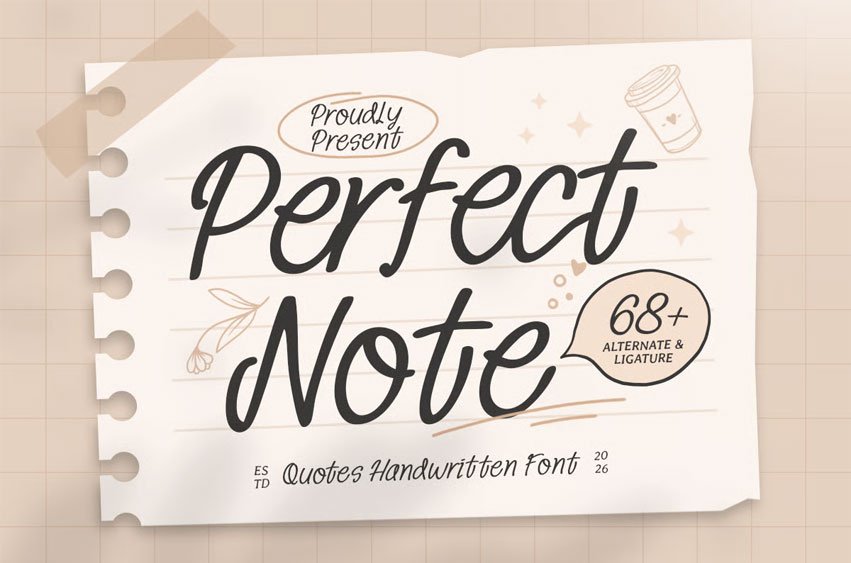
Perfect Note Font is a quotes handwritten font crafted to bring warmth, personality, and natural charm to your typography. With soft handwritten strokes and an easy flowing rhythm, this typeface creates a personal visual tone that feels authentic, friendly, and beautifully expressive.
Designed for quote-focused layouts, Perfect Note works beautifully across inspirational posts, journaling pages, planners, greeting cards, note designs, social media graphics, stickers, quote prints, website headers, and creative branding accents. Its handwritten character keeps every message approachable and stylish while maintaining readability across both digital and print formats.
Whether you’re creating motivational content, designing aesthetic stationery, building a personal brand, or crafting soft handwritten visuals for modern layouts, Perfect Note provides a clean handwritten foundation that makes your typography feel intimate, expressive, and instantly memorable.
Inspiration Behind Perfect Note
Perfect Note is inspired by real handwritten journaling and everyday quote lettering—where simple strokes, personal rhythm, and natural movement create emotional connection. The design focuses on soft flow and readable handwritten balance to support inspiring messages, note-style compositions, and modern creative content with a warm, human touch.
Perfect Note Font Features:
- Handwritten letterforms with soft natural quote-style character
- Perfect for inspirational phrases, notes, and personal lettering
- Clean readable structure for social posts and creative layouts
- Uppercase, lowercase, numerals, and punctuation included
- OpenType features for polished professional typesetting
Perfect For
- Quote graphics, inspirational posts, and motivational content
- Journals, planners, note pages, and aesthetic stationery
- Greeting cards, stickers, and creative handwritten layouts
- Social media graphics, website headers, and content branding
- Personal projects, lifestyle visuals, and expressive lettering design
Make every message feel personal with Perfect Note—a quotes handwritten font made for warm, expressive visual storytelling.